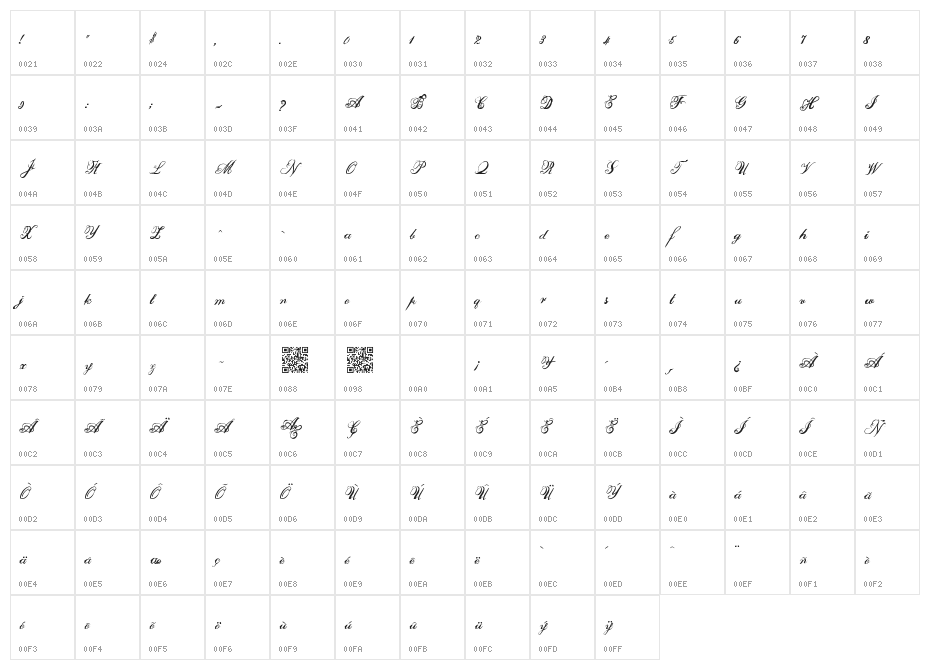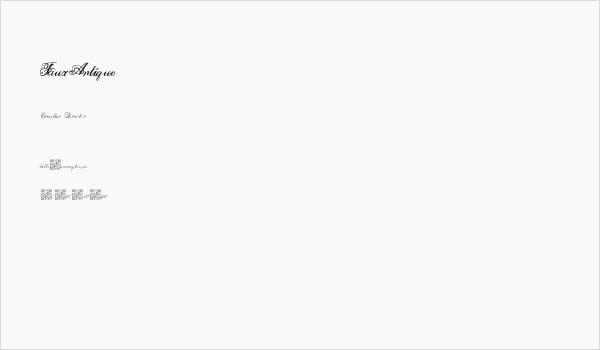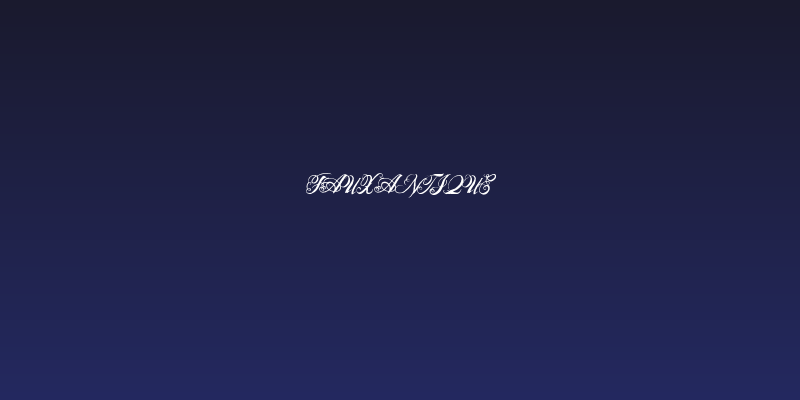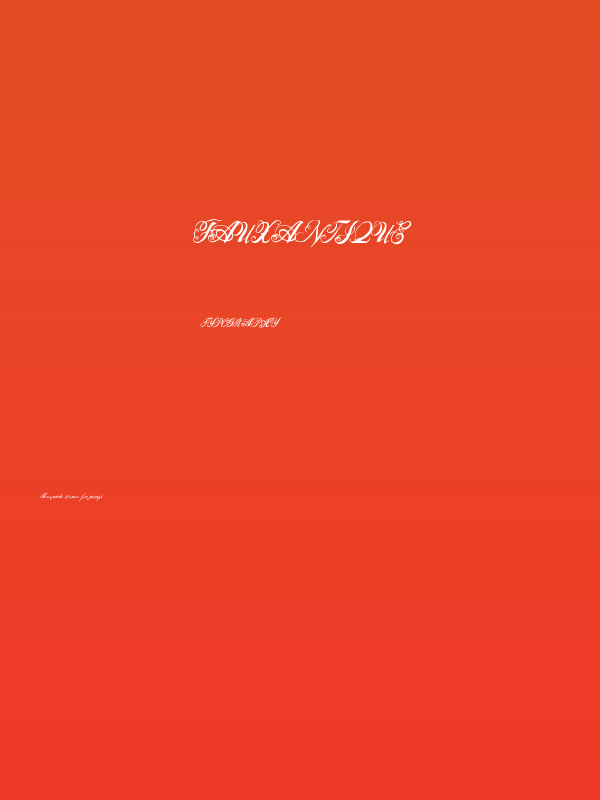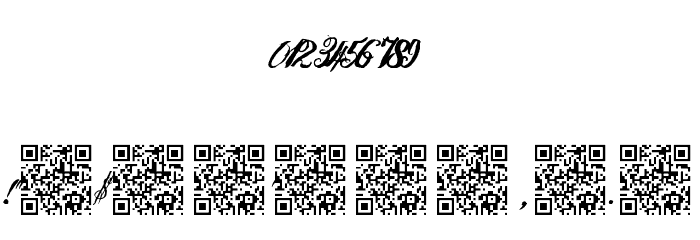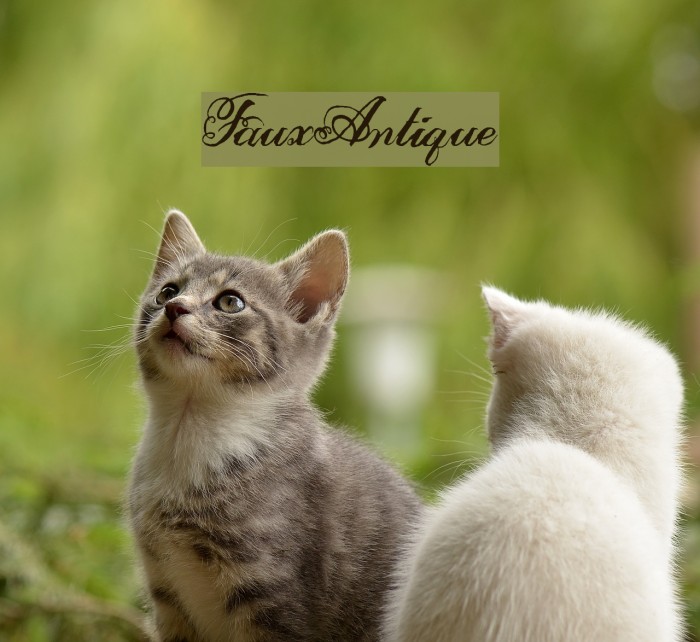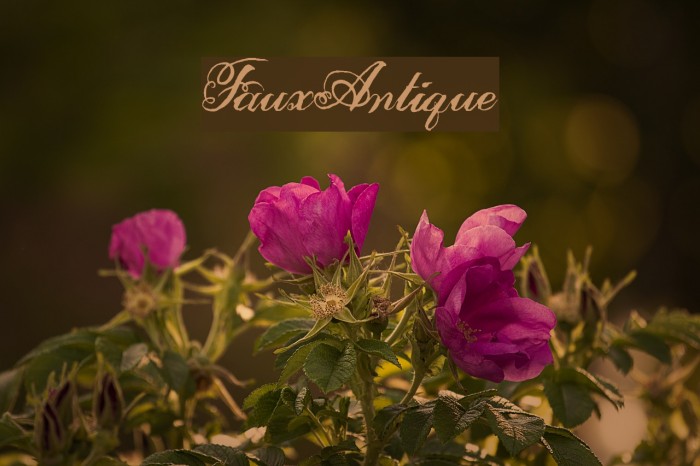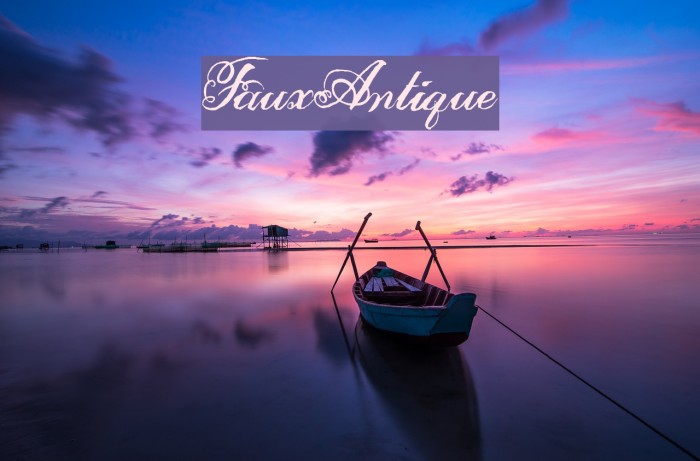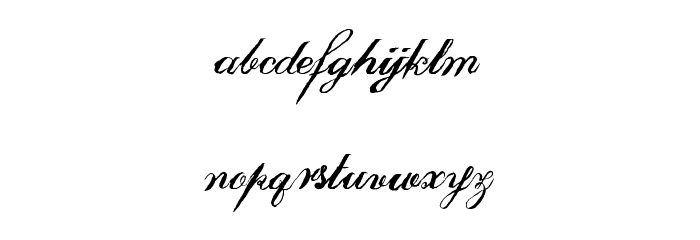
FauxAntique Font
FauxAntique Description
This font embodies a classic, elegant script style with intricate, flowing lines and ornate detailing. Each character is crafted with a high level of sophistication, featuring elaborate swashes and flourishes that give it a distinctly vintage feel. The uppercase letters are particularly decorative, with loops and curves that enhance their visual appeal. The lowercase letters maintain a consistent style, offering a harmonious balance between readability and decorative flair. The numerals and special characters are equally ornate, ensuring a cohesive look across all text elements. This font is ideal for projects that require a touch of elegance and historical charm.
| Proposed Projects | Ideal for wedding invitations, formal event programs, vintage-themed branding, and elegant packaging designs. |